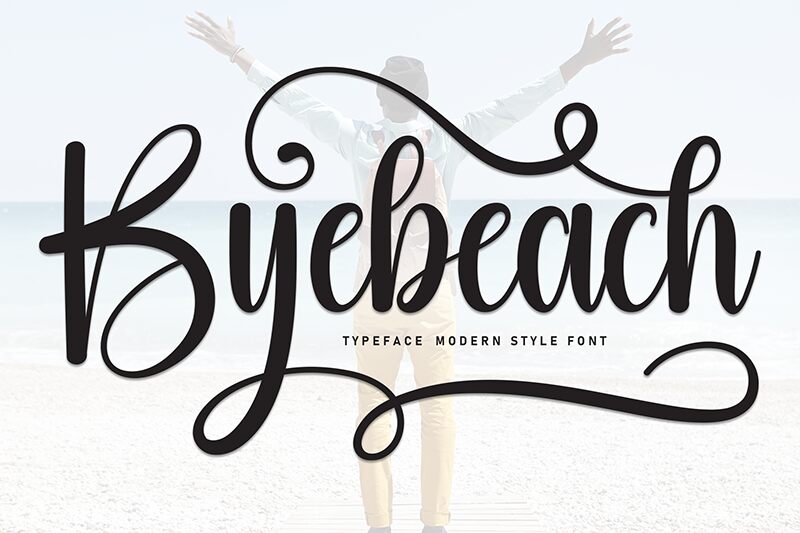
Byebeach
Byebeach font by Scratchones is a free calligraphy font with an elegant and flowing style. This modern script showcases sophistication and expressiveness in a subtle manner that highlights its curves. The smooth letters are round with stylish swashes that make the characters truly charming.
It has many incredible uses as it enriches personal invitations, labels, signatures, branding designs, decorative t-shirts, photography posts, greeting cards, and other special projects. This beautiful font suits quotes too! Paragraph